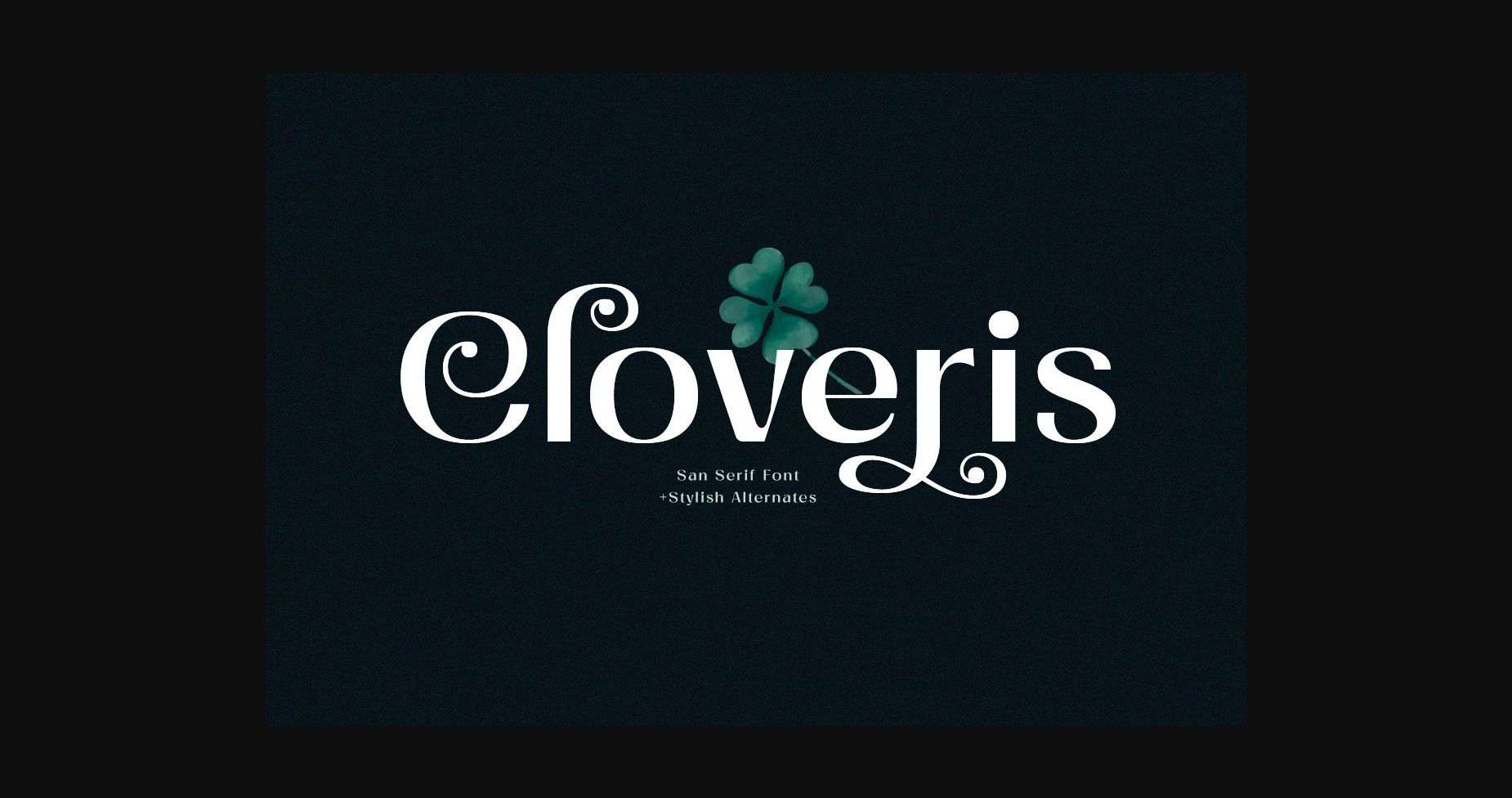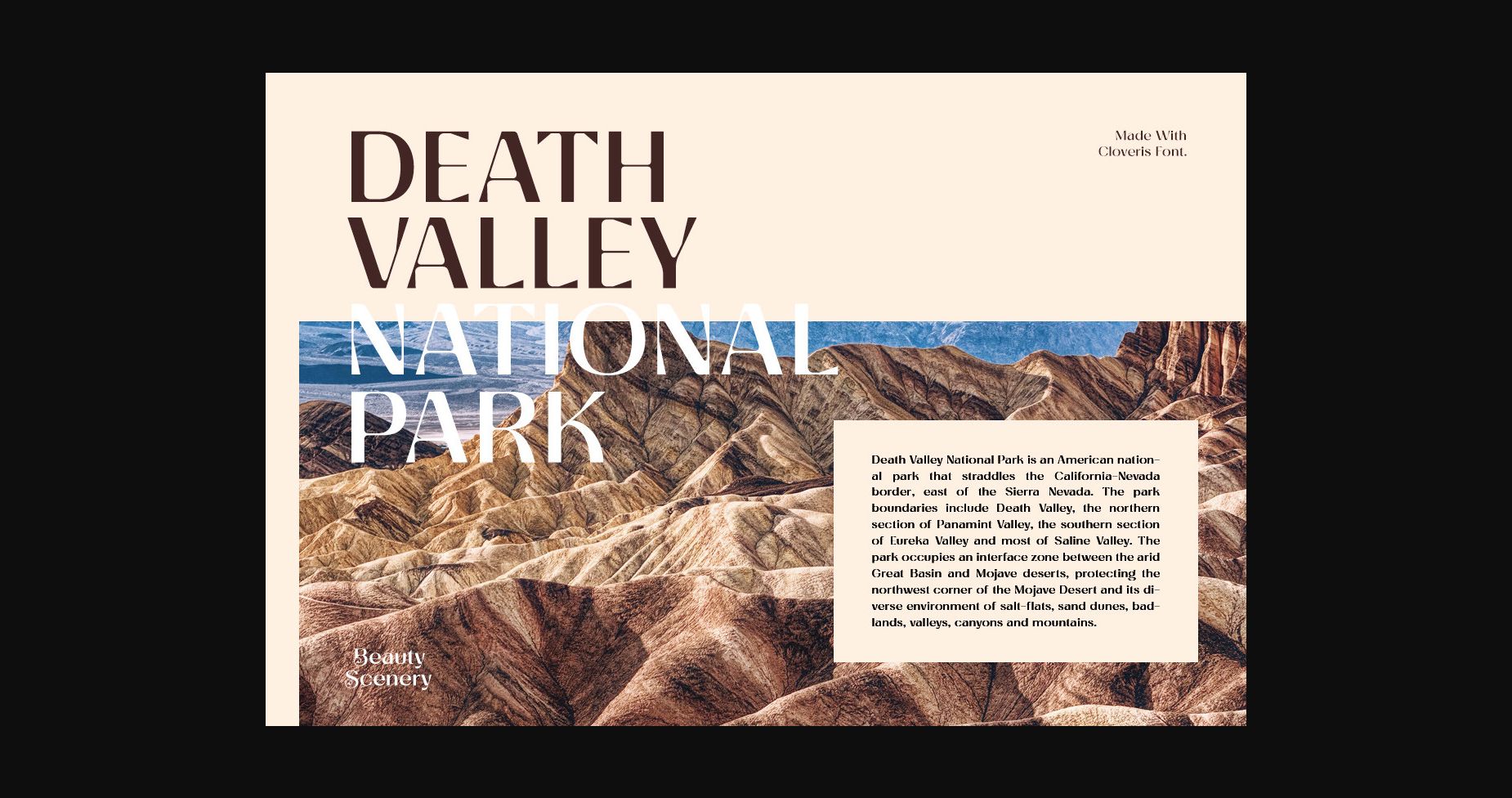
About Cloveris Font
Cloveris is a sophisticated sans serif with unique swirls and swashes. Its unique letterforms make it stand out. It is very suitable for headlines and titles. You can also add it to various formal forms such as invitations, labels, logos, magazines, greeting/wedding cards, packaging, fashion, make-up, stationery, labels, and any type of creative project that has an advertising purpose.